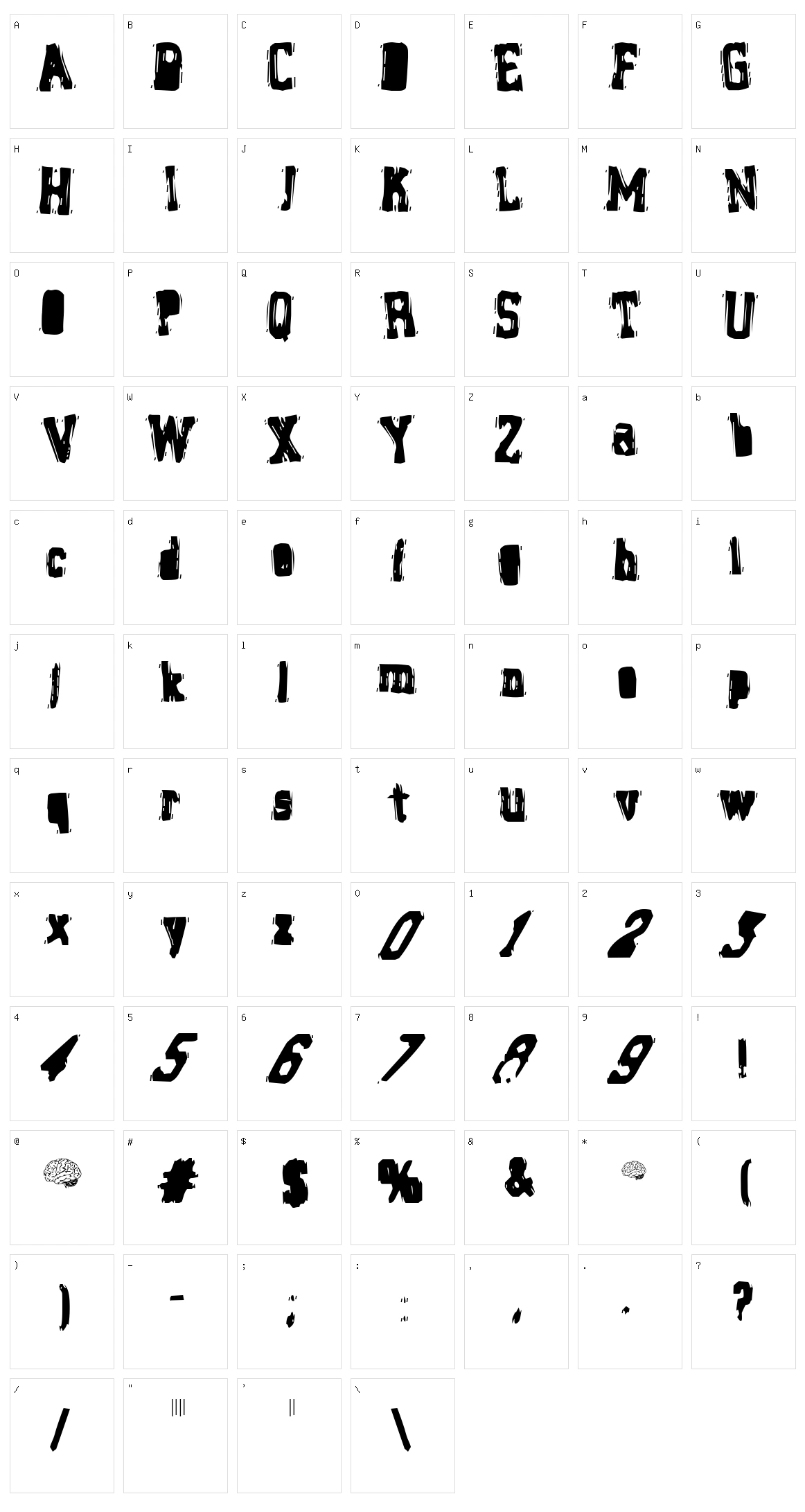
The free font Brain Stew is carefully designed by Brain Stew Fonts, showcasing a thoughtful balance of creativity and usability and falls under the Destroy font style. When you download the ZIP file, it contains only 26.14 KB of font files, making it lightweight and quick to download. Please review the license details below to understand permitted usage and distribution rights. If license information is not available, we recommend using this font for personal projects only or contacting the author directly for commercial usage permissions.
This font is called "Brain Stew".
It is based on a lettering style used by Rpbert "cos'" Cosgrove.